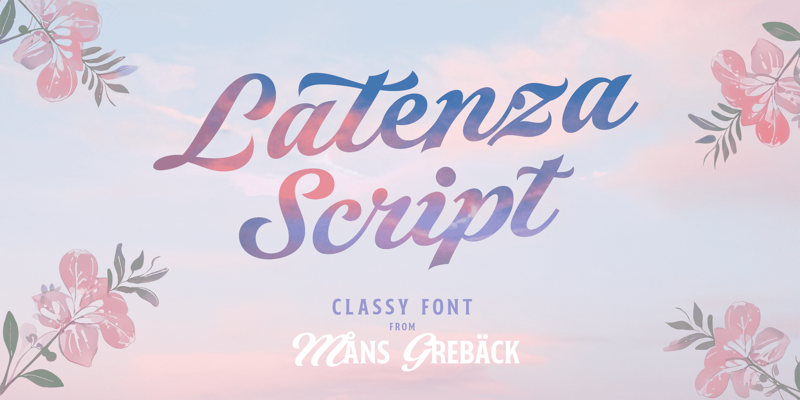
Latenza Script
Måns Grebäck · Regular · Latenza Script
NOTE: This font is for PERSONAL USE ONLY! To purchase a commercial license, visit: https://www.mansgreback.com/product/latenza-script Latenza Script is a flowing calligraphic script with a soft, composed rhythm. The letters move with long strokes and gentle turns, giving the text a calm confidence rather than a loud flourish. It carries a classic feeling, but with relaxed proportions that make it feel natural and contemporary. For questions, please visit https://mansgreback.com/faq